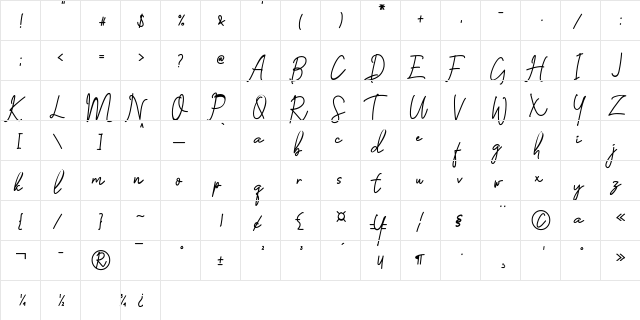
Busset City - PU Regular
Design Context for Busset City - PU Typeface
Busset City - PU is a composed and adaptable typeface that performs quietly and consistently across a wide range of design contexts.